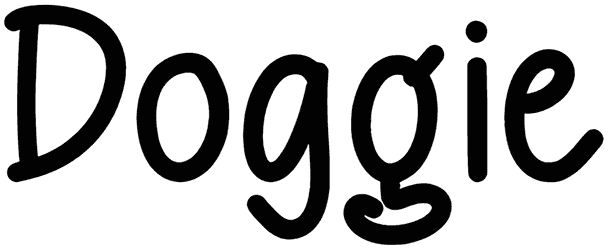
Doggie Font
Would you love to create a funny and cute layout to convey a happy vibe to your audience? As a handwritten font with a minimal and mild face, Doggie can brilliantly do this. Set this nice all-purpose comic font on your forthcoming projects, for example, flyers, logos, postcards, or the like, and lend them a cheerful style.